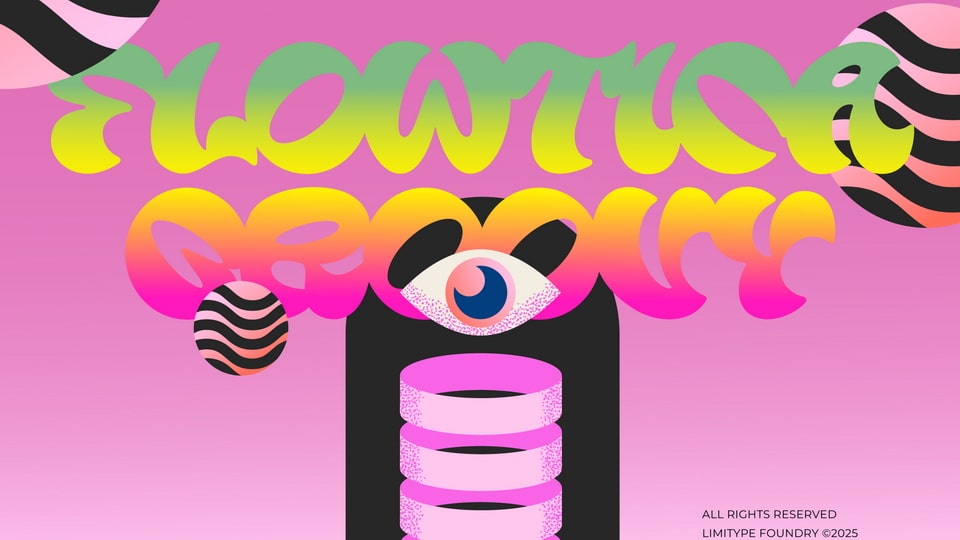
Download Flowtica font, a groovy bold display typeface with rounded, wavy letterforms that bring a retro psychedelic vibe. Its expressive and unique character makes every text look lively and full of energy.